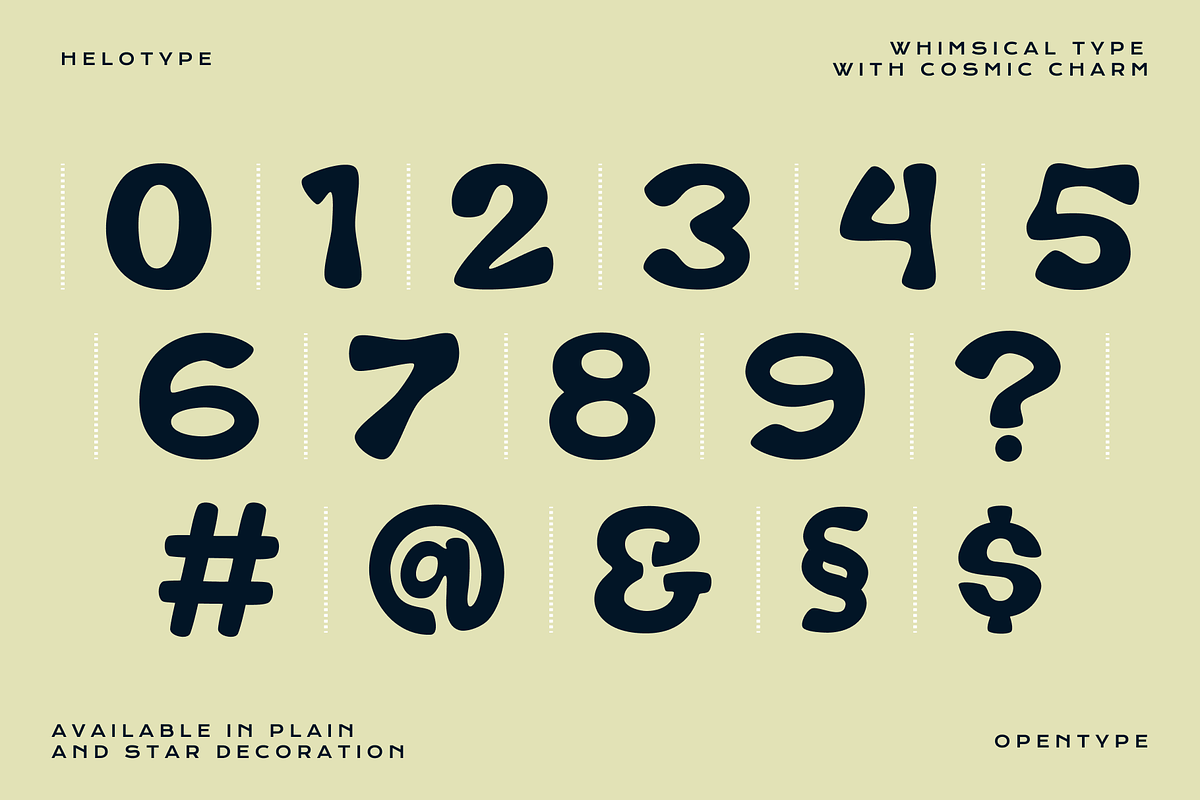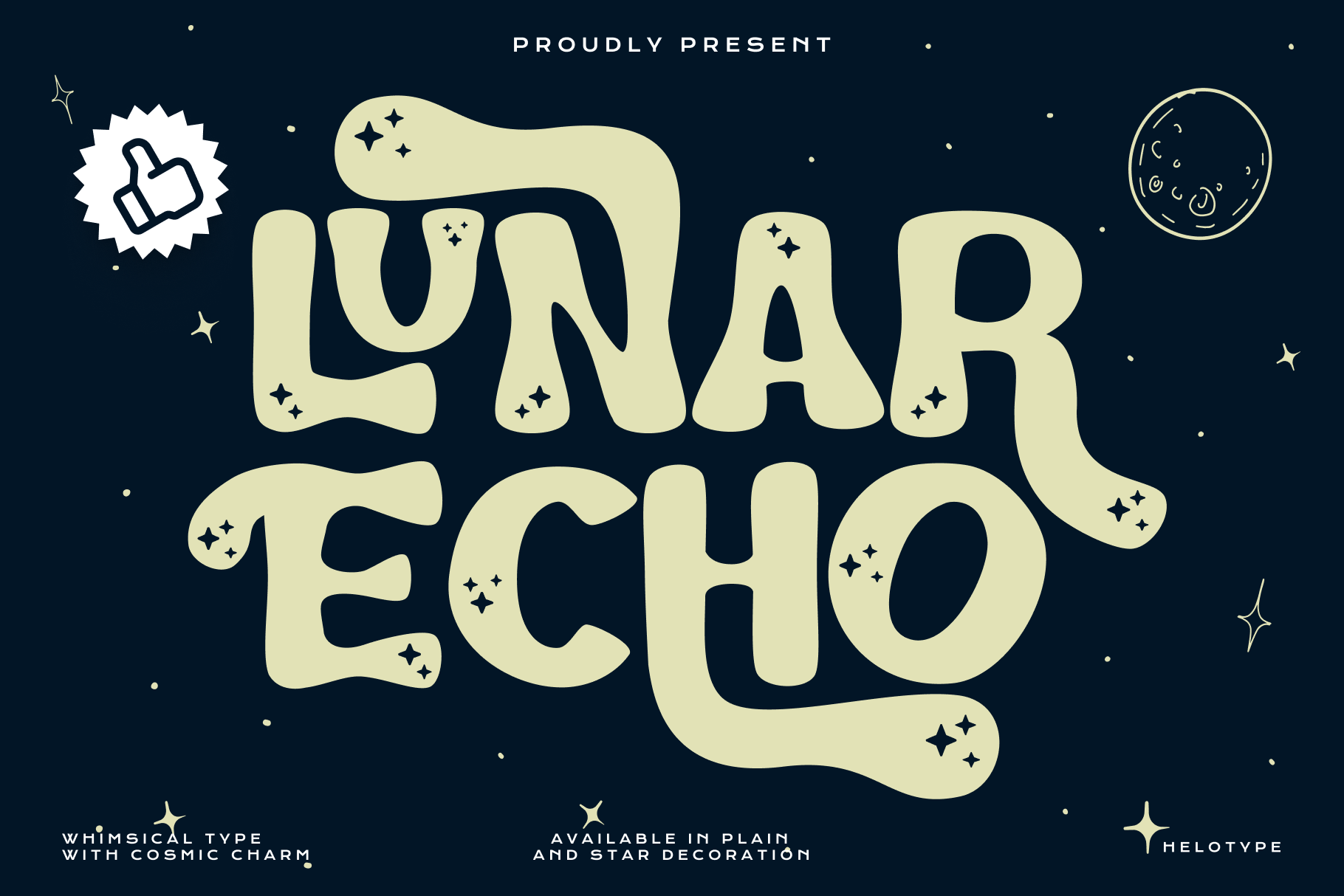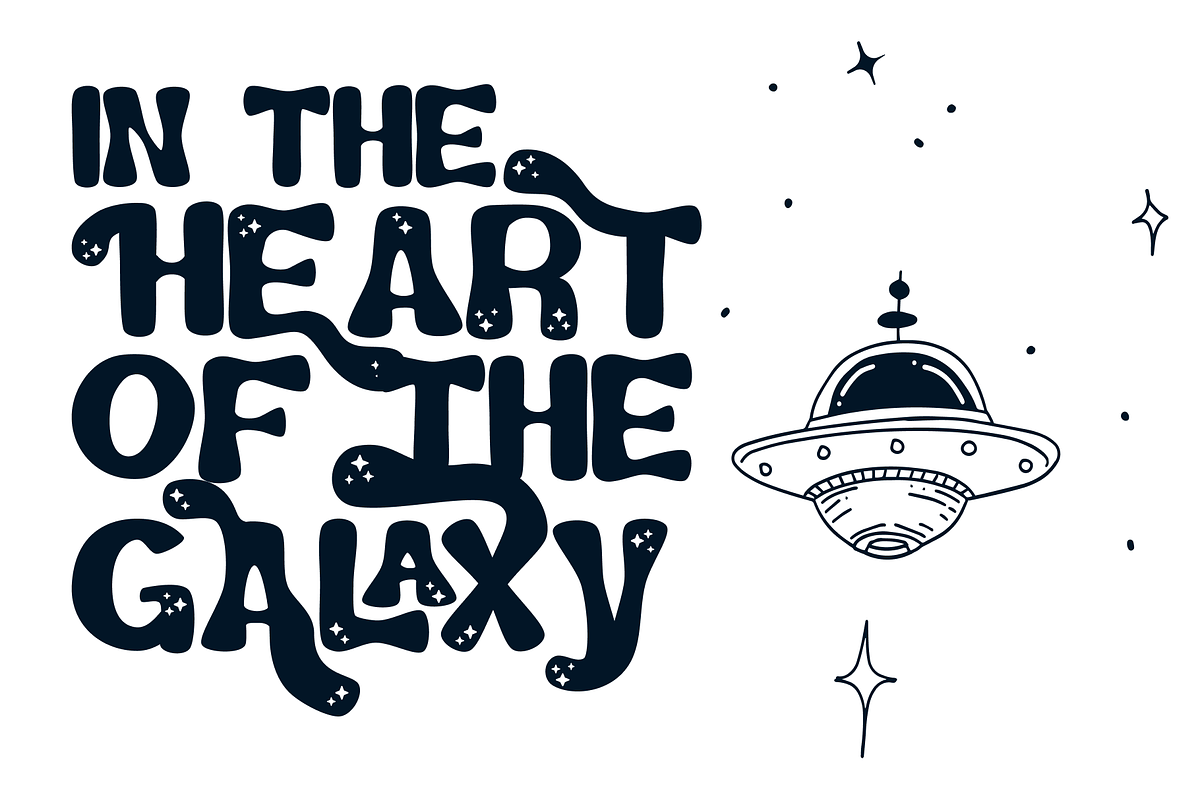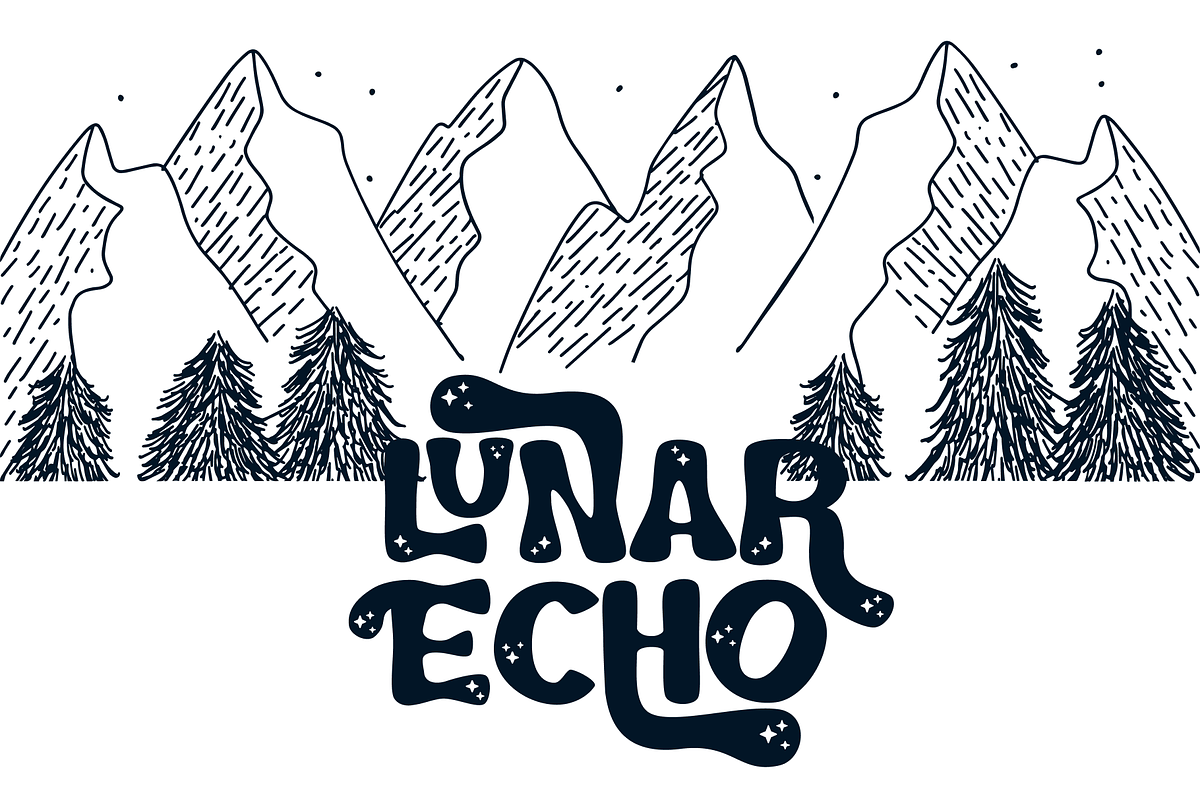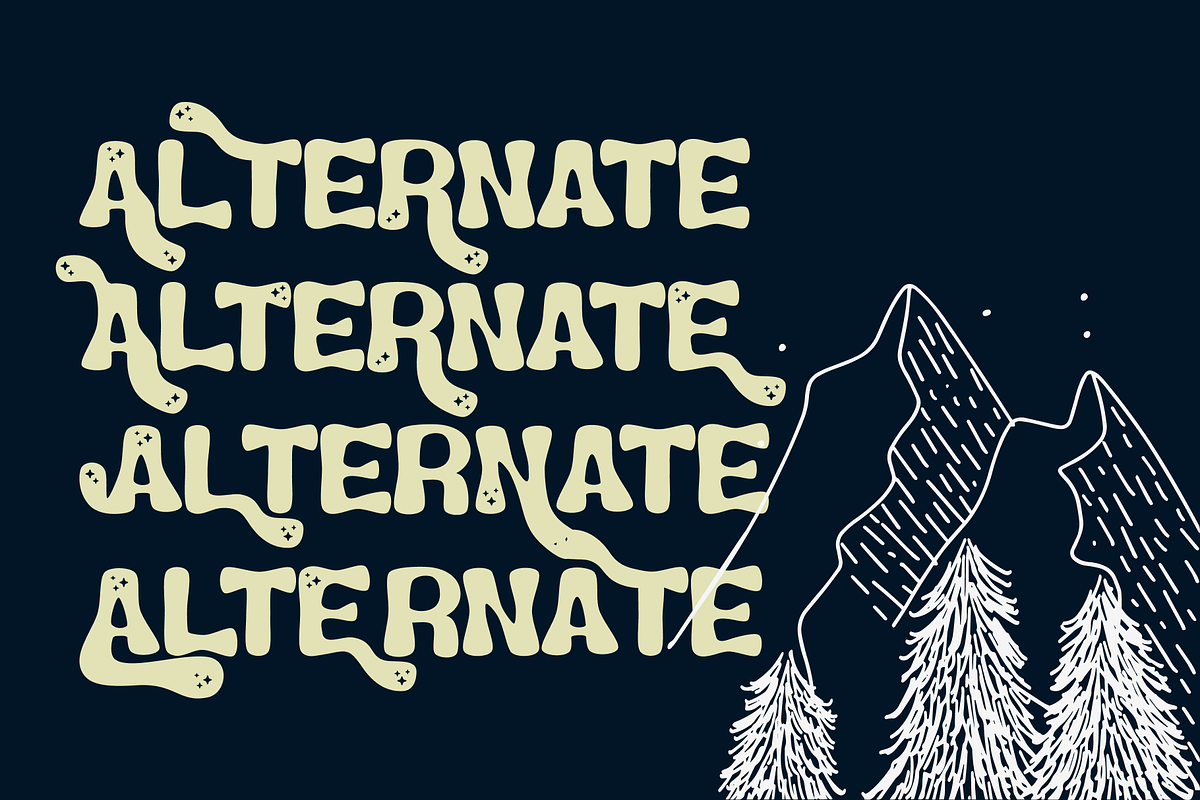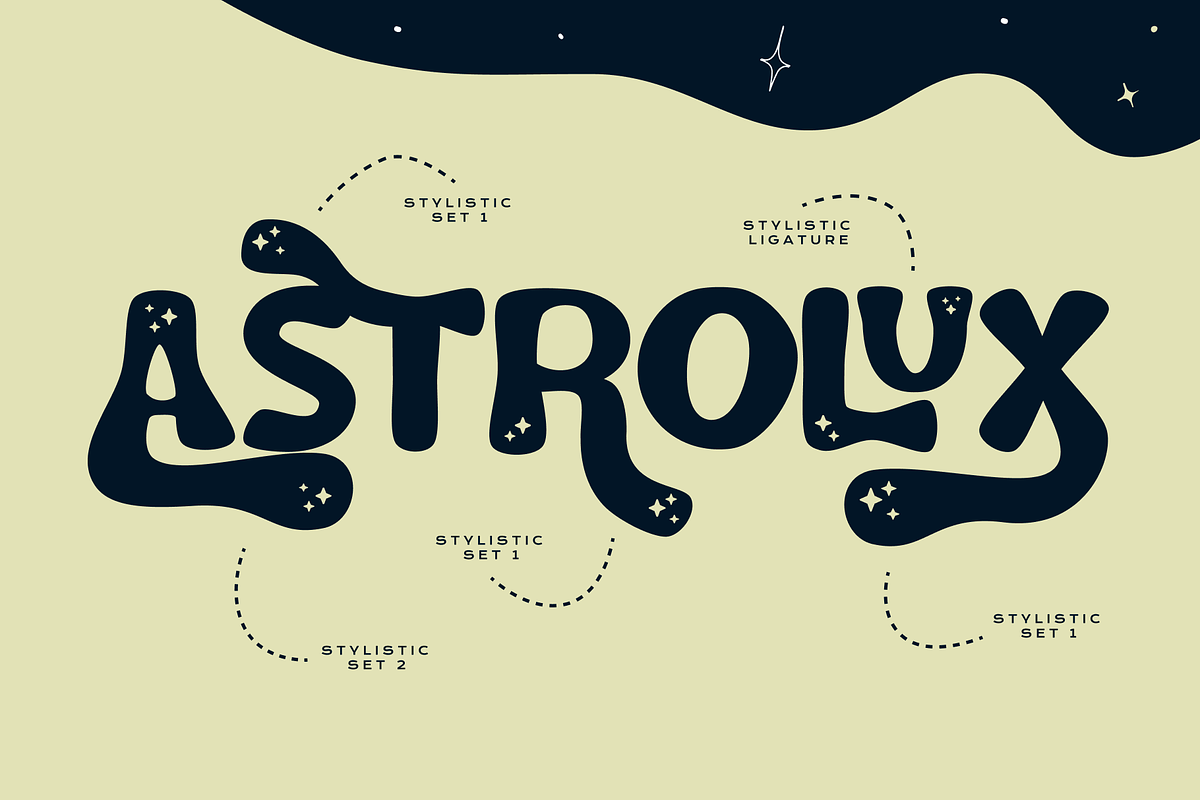
Lunar Echo - Cosmic Vibes Font
Unleash your inner astronaut with Lunar Echo! This whimsical space-themed font is out of this world, perfect for adding a touch of cosmic charm to your designs. From playful posters to dreamy branding, let Lunar Echo take you on an interstellar adventure.
- ligature and alternates feature